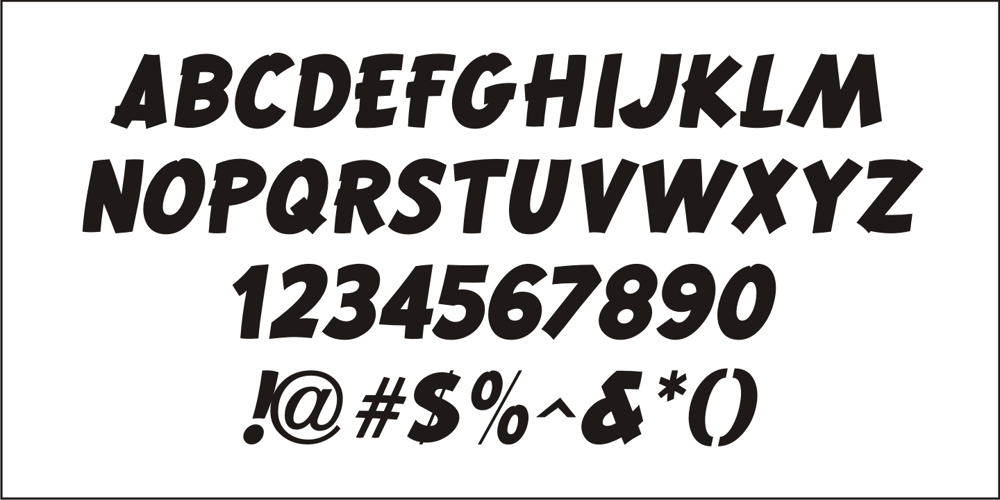
Quick Poster JNL Font Family was designed by Jeff Levine and published by Jeff Levine. Quick Poster JNL contains 2 styles and family package options. A vintage poster from the British Columbia Forest Service on the subject of forest fire prevention provided the hand lettering that was the design model for Quick Poster JNL; available in both regular and oblique versions.